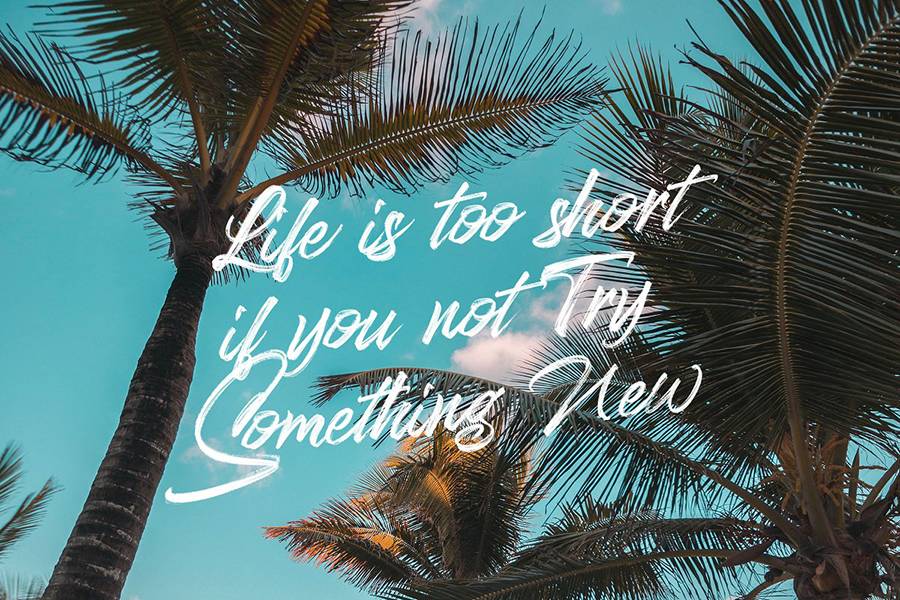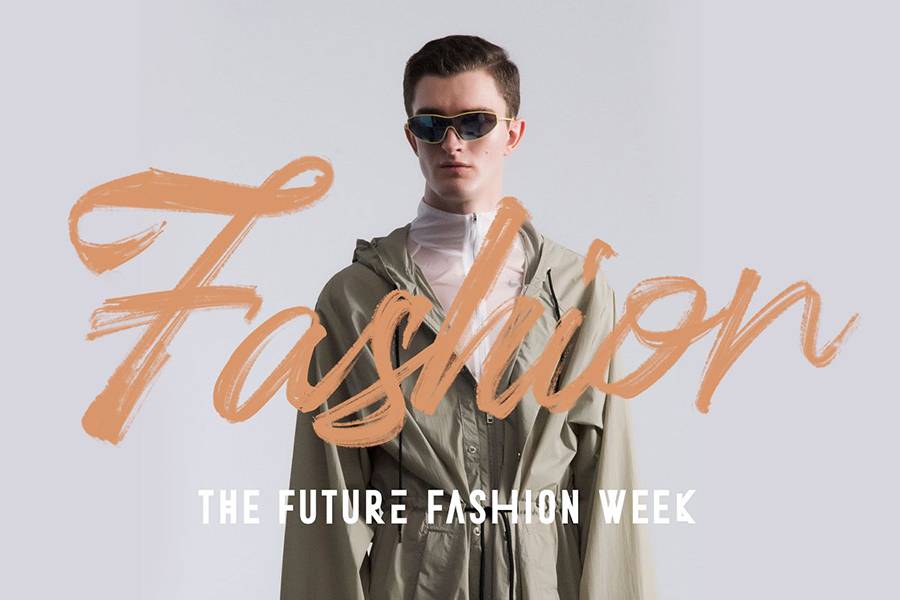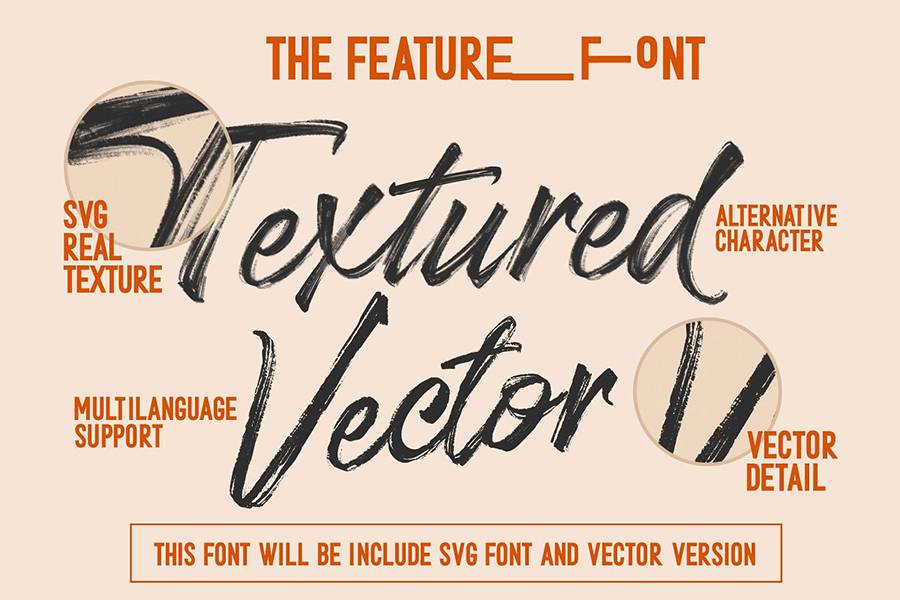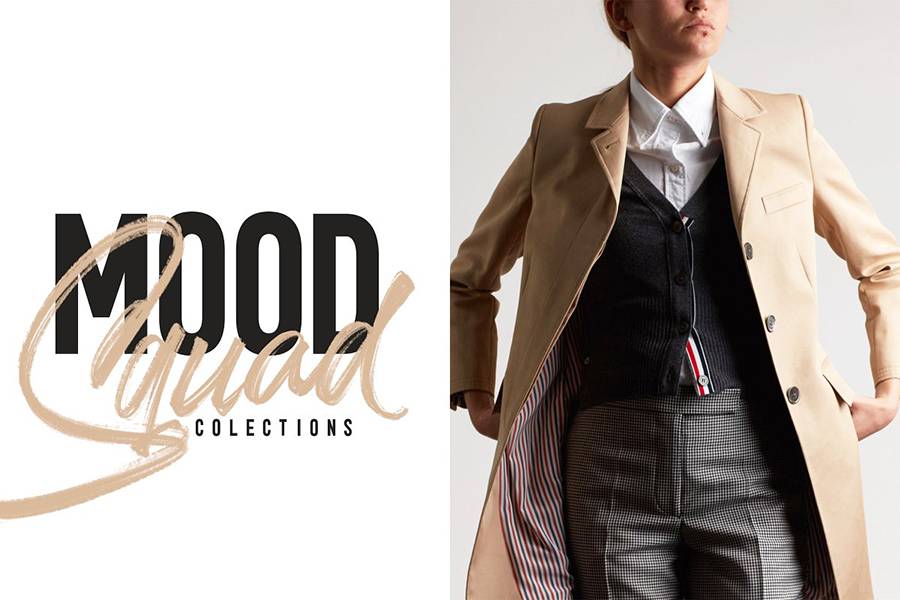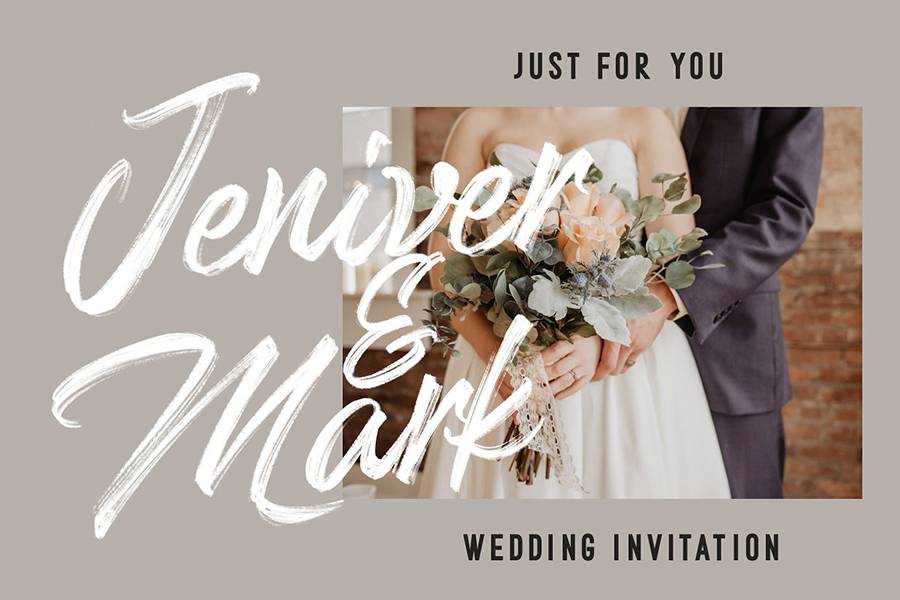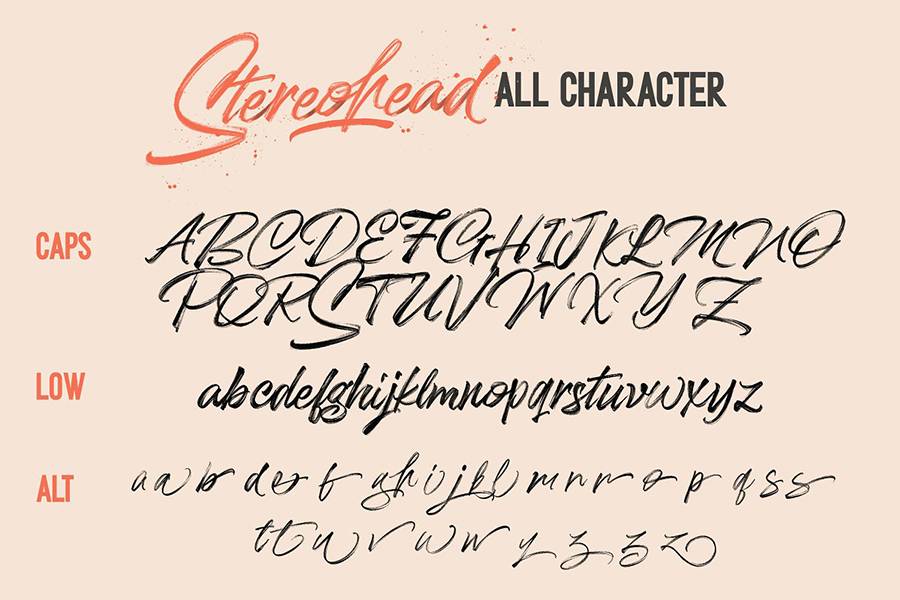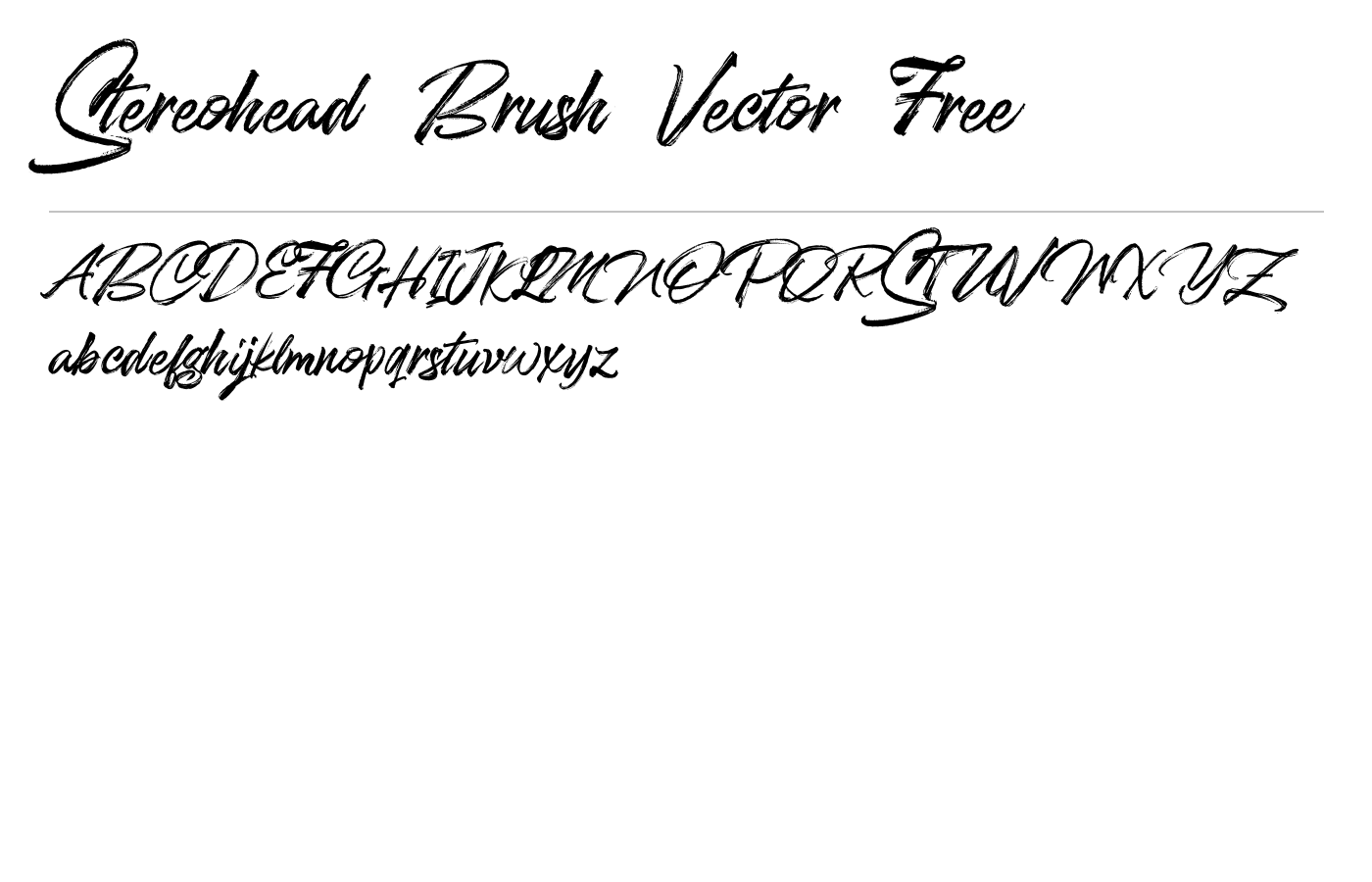
Stereohead Brush Lettering is a lively and expressive script font that mimics natural brush strokes with varied thickness and rough edges, giving it an organic, hand-painted feel. Its tall, narrow letterforms with smooth, flowing connections make it perfect for creative projects that need a personal, artistic touch, such as branding, posters, and social media graphics. This font brings a casual yet dynamic vibe that works well in designs aiming for an authentic and handcrafted look.
Stereohead Brush Lettering Font
About Stereohead Brush Lettering Font
| Font family | Stereohead Brush Lettering Font |
| Designer | Hendra Maulia |